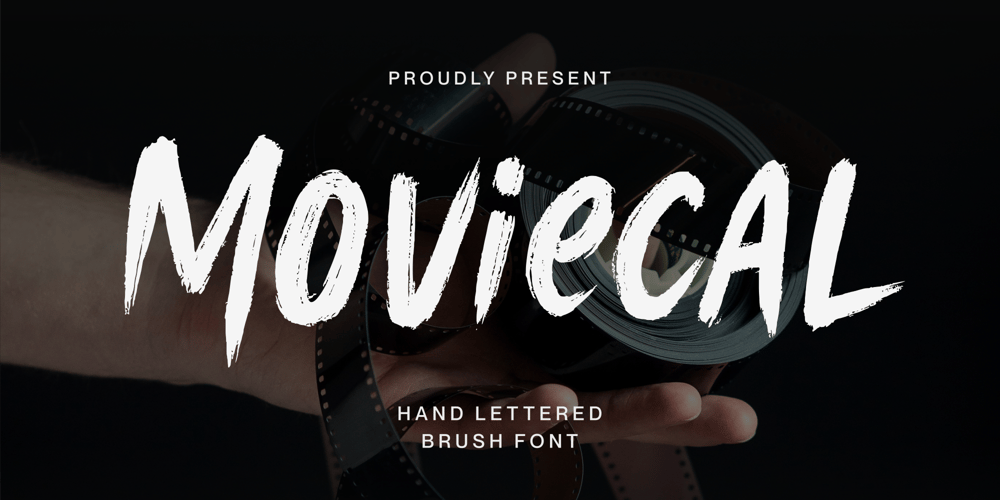
Moviecal Font Family was designed by Fachrizal Yusuf and published by Allouse Studio. Moviecal contains 1 styles and family package options. Proudly Presenting, Moviecal a Handlettered Brush Font.Moviecal is perfect for any titles, logo, product packaging, branding project, megazine, social media, wedding, or just used to express words above the background.Moviecal also come with Multi-Lingual Support.Enjoy the font, feel free to comment or feedback, send me PM or email. Thank You!